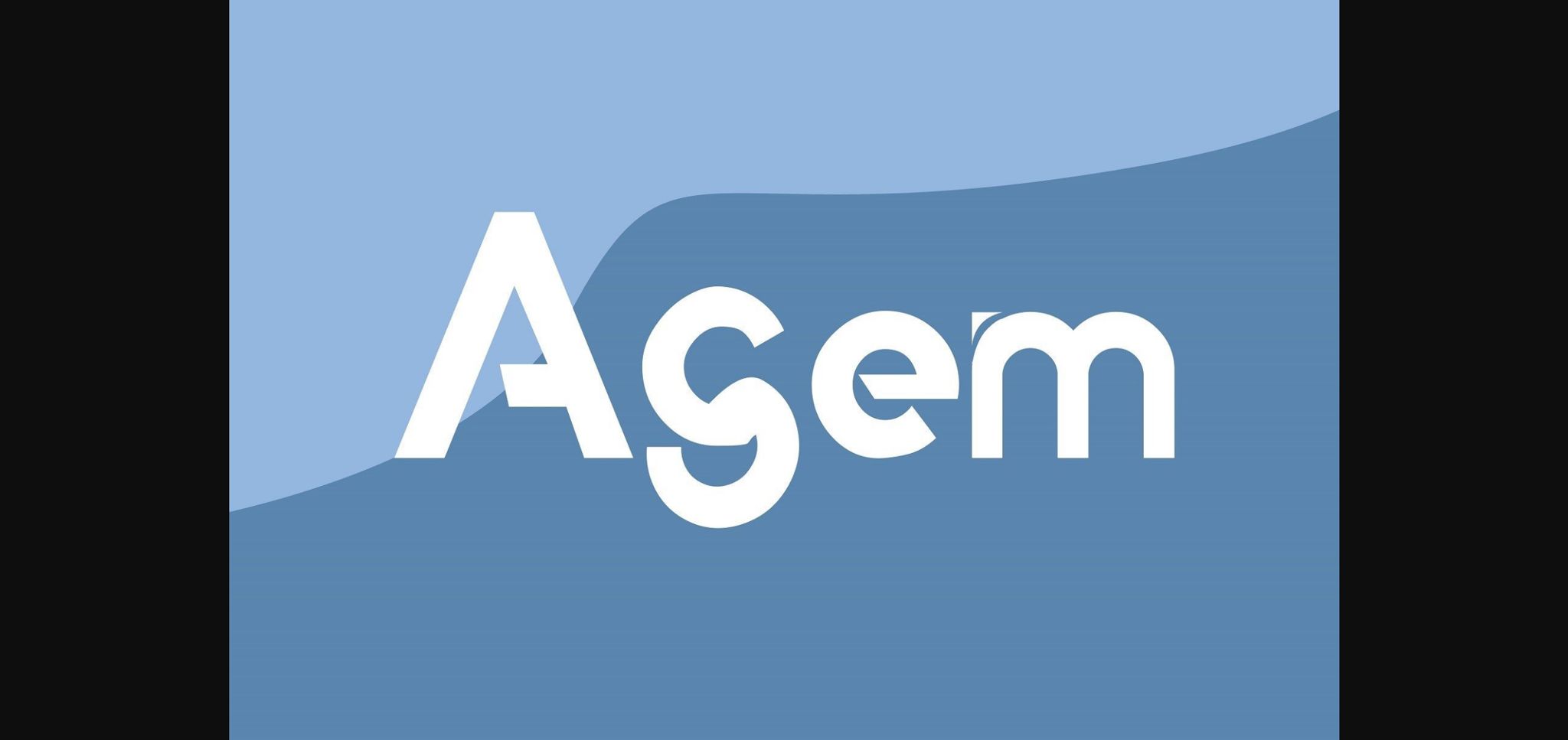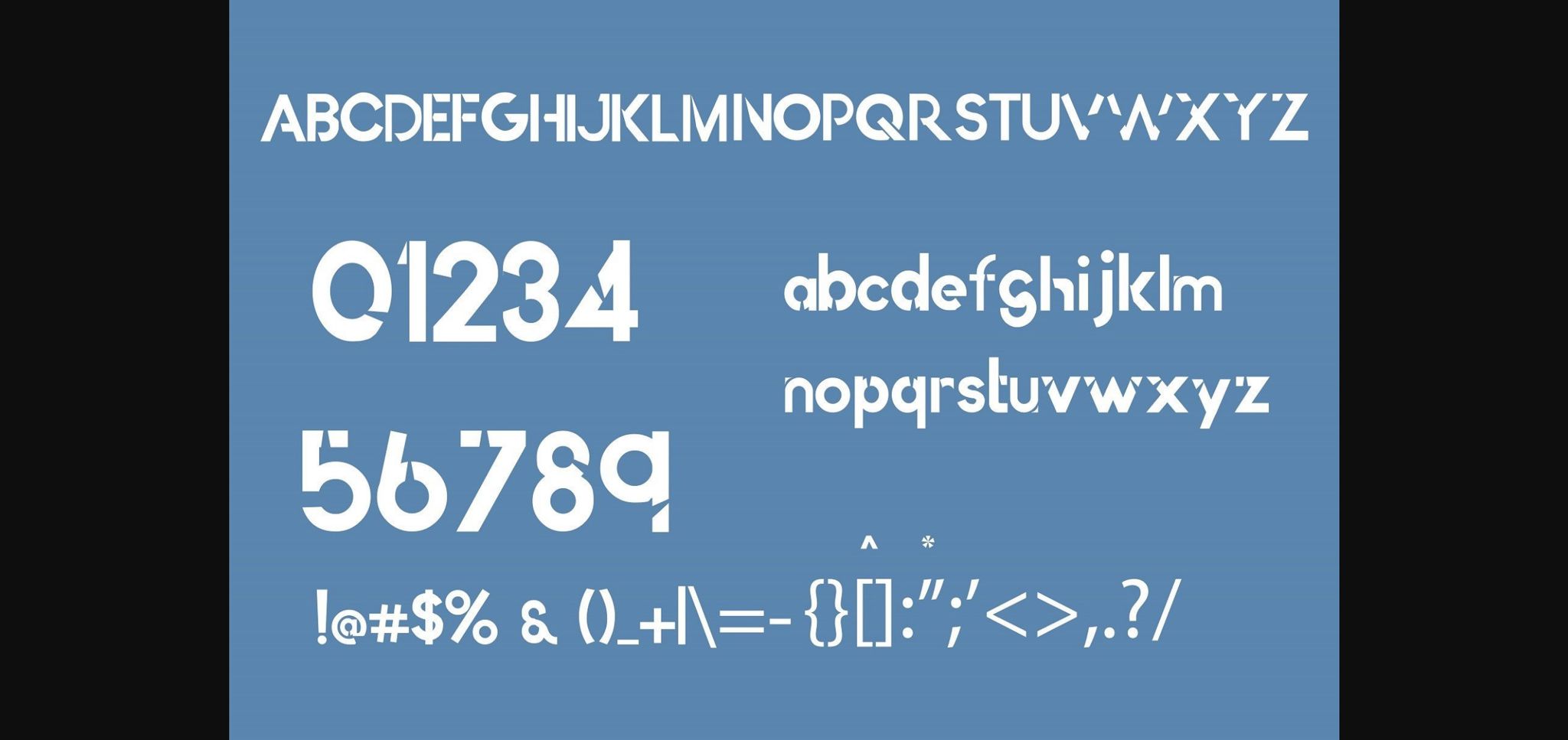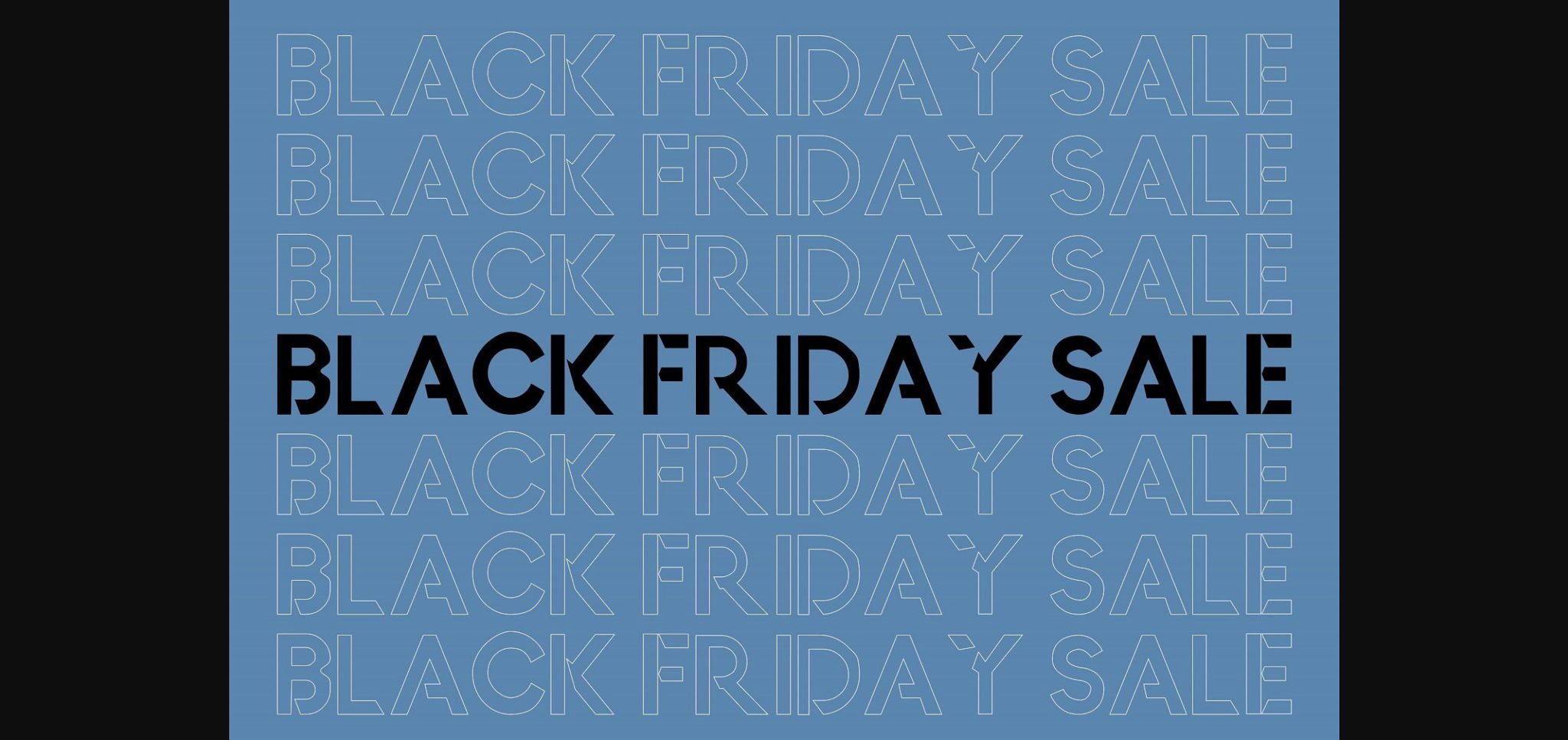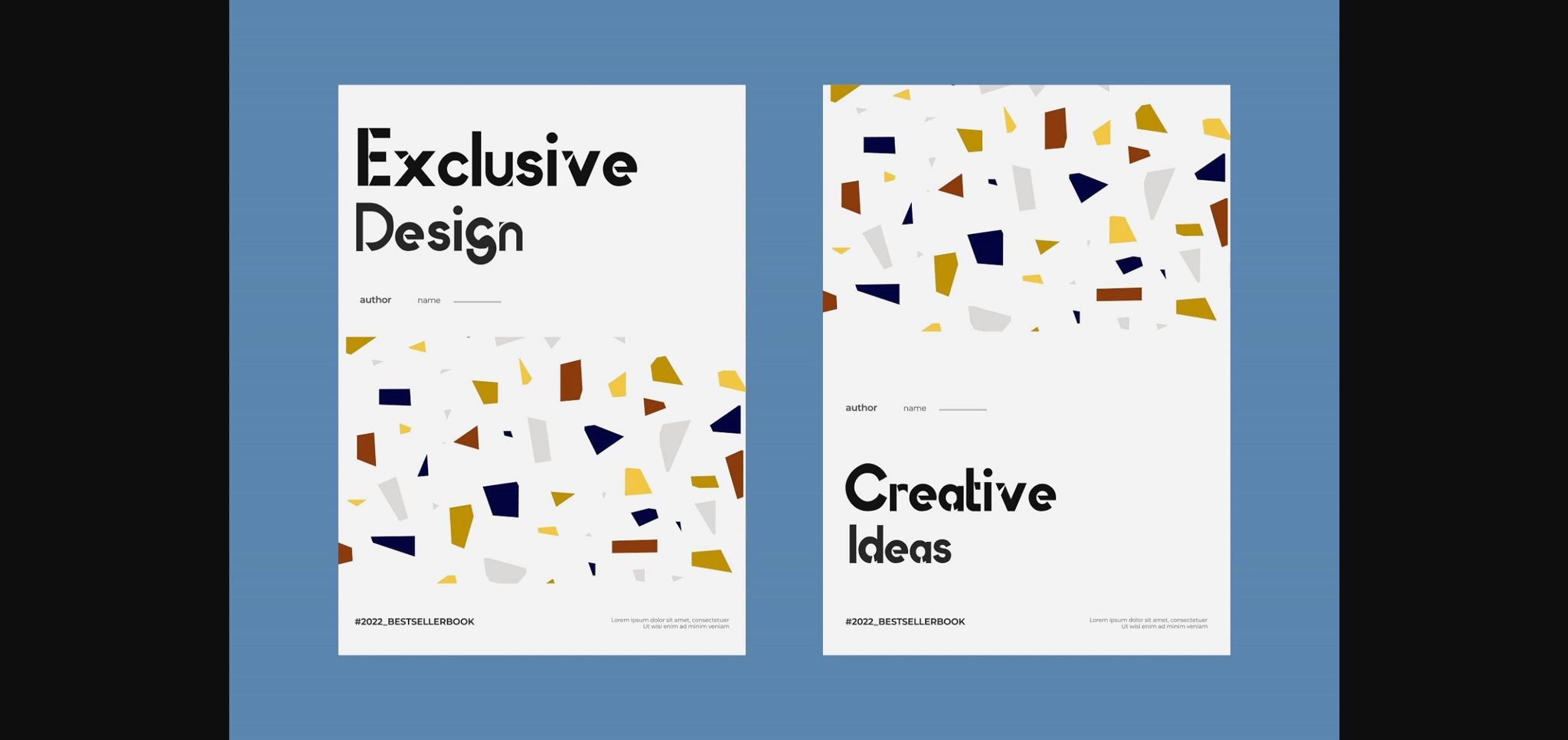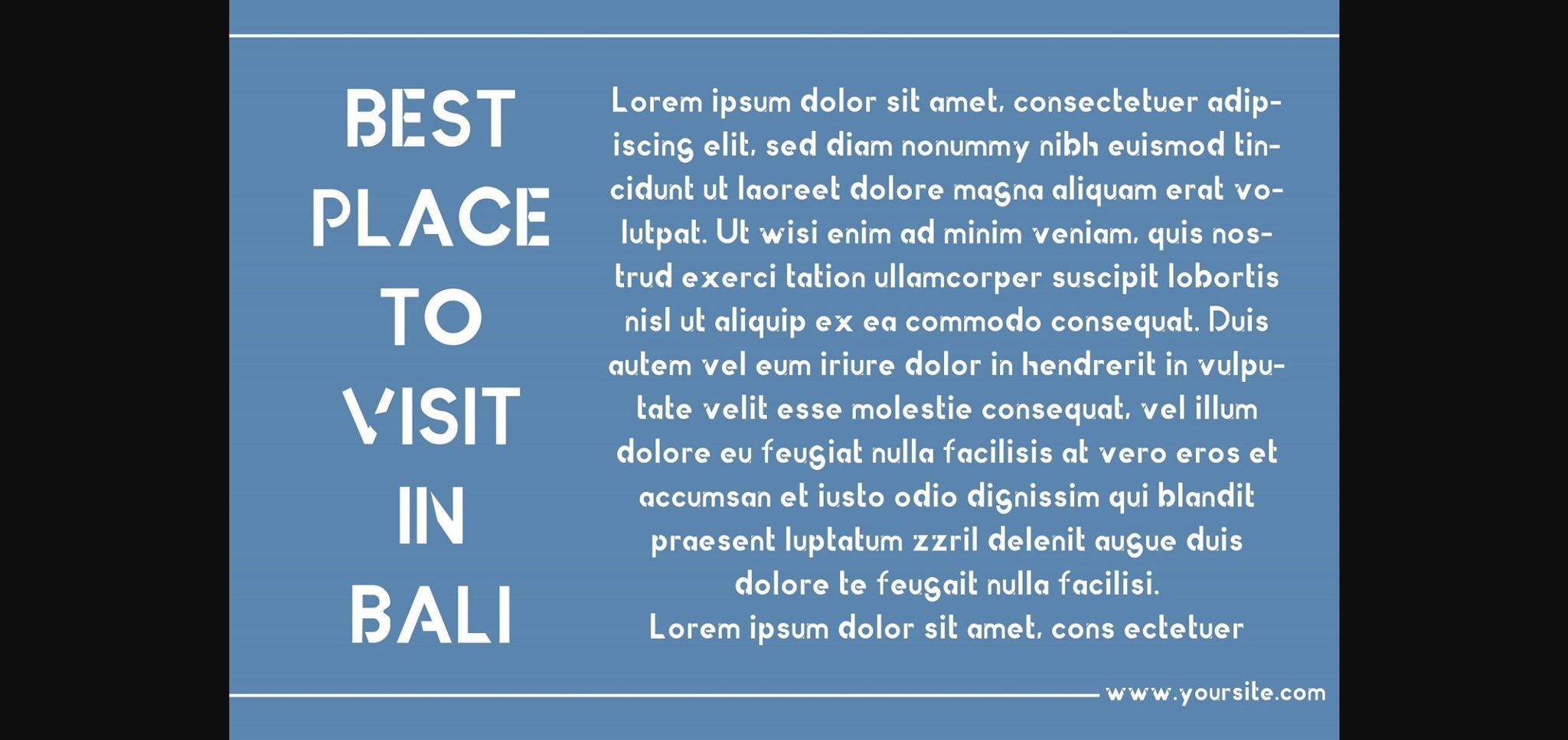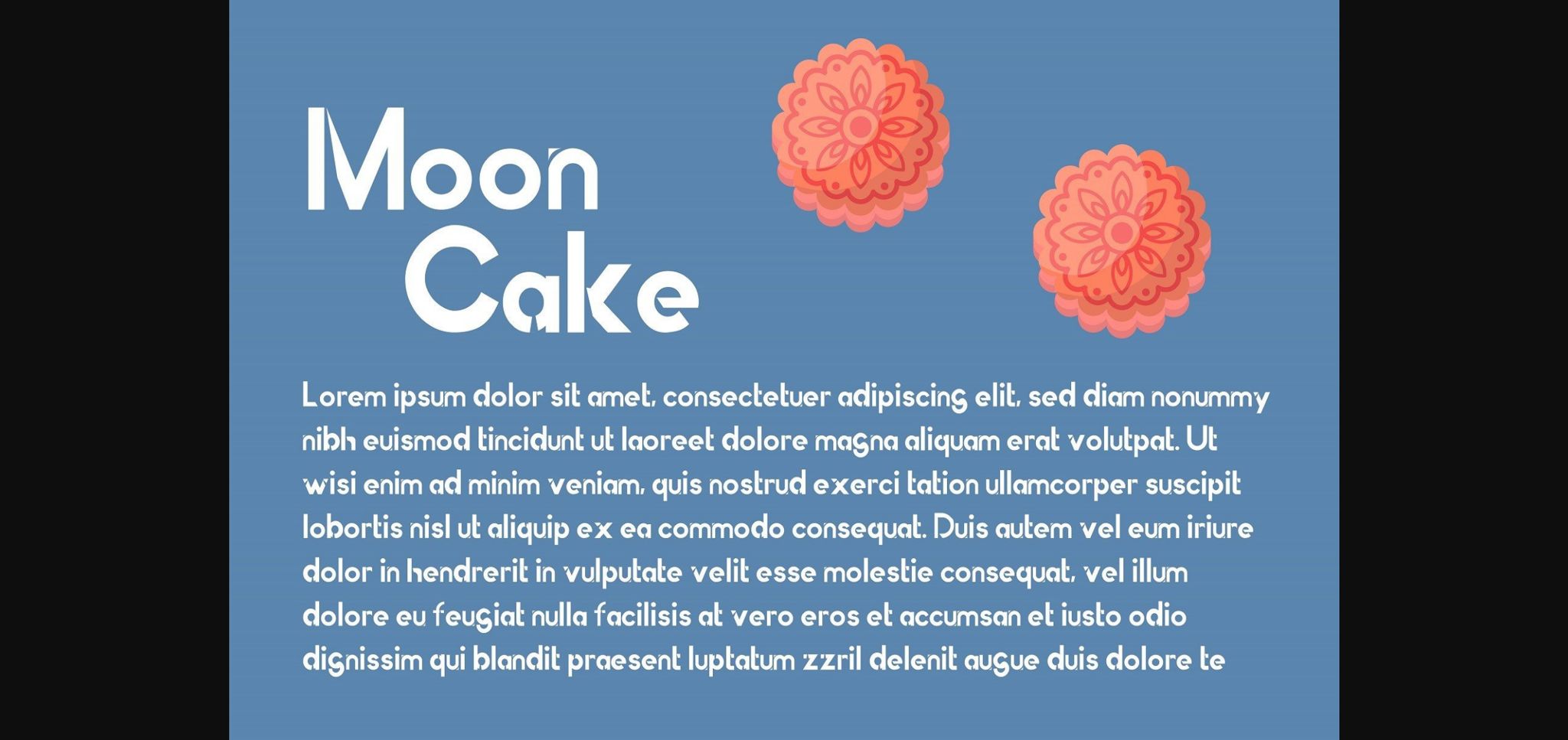
Agem is a fun and simple hand-lettered sans-serif font! This font would be perfect for the web, party invitations, quotes, products, logos, packaging, book covers, and more.